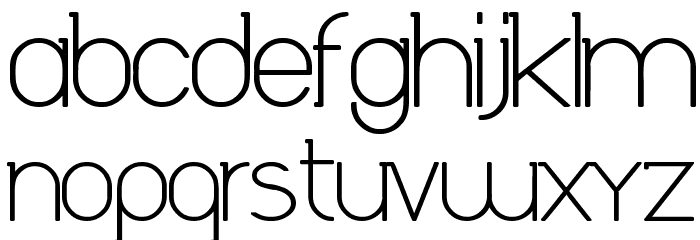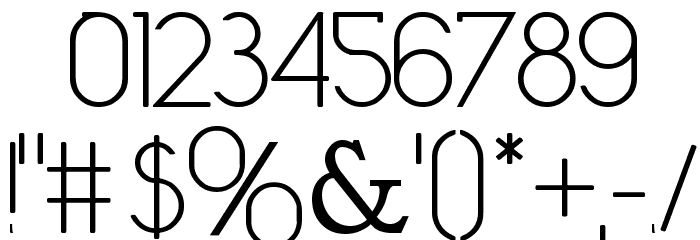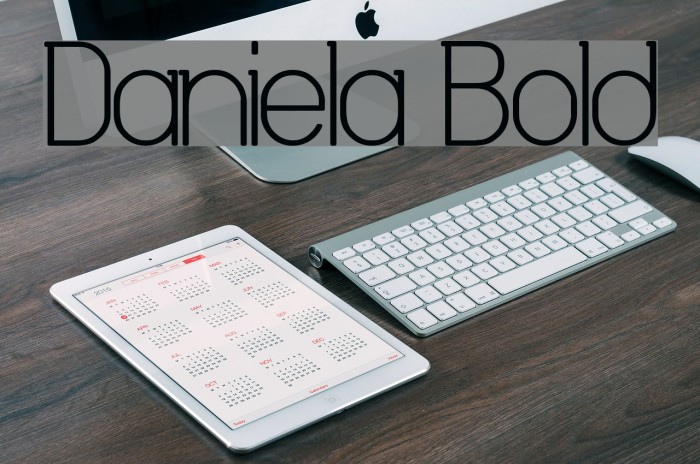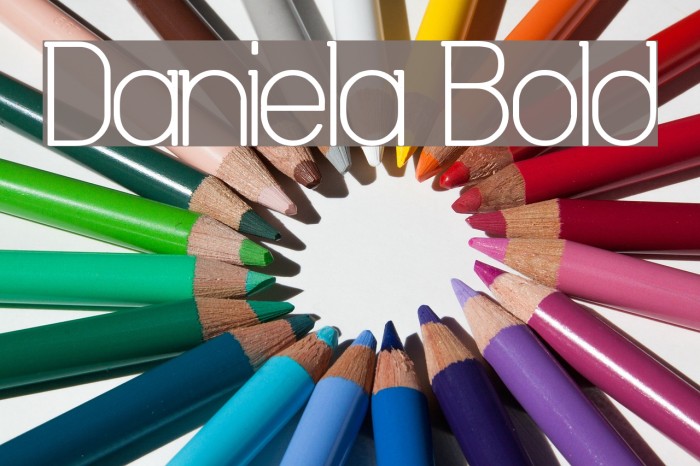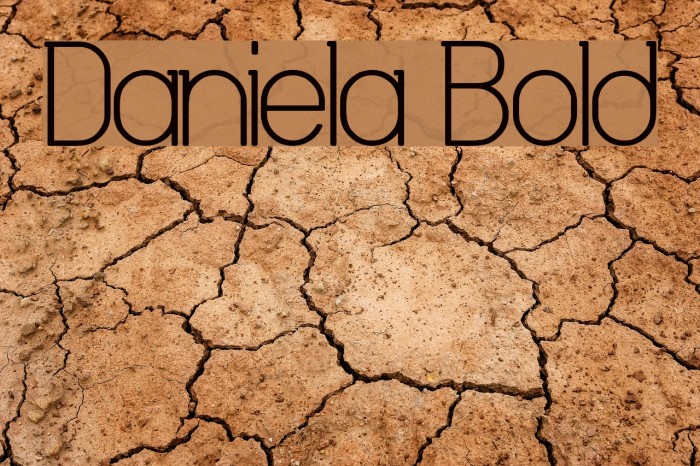
Daniela Bold Font
This font features a clean, geometric sans-serif style with a modern aesthetic. The characters are constructed with consistent stroke widths, giving it a uniform appearance. The uppercase letters are tall and slightly condensed, while the lowercase letters maintain a similar width, providing a harmonious balance. The numerals are clear and legible, matching the overall style of the alphabet. Special characters are designed to complement the letterforms, ensuring consistency throughout the typeface. This font's simplicity and clarity make it versatile for various design applications.
A clean, geometric sans-serif font with consistent stroke widths and a modern aesthetic.
- Proposed Projects: Ideal for branding, editorial design, web design, and advertising projects where clarity and modernity are essential.
- Use Case: Headlines, Logos, Web design